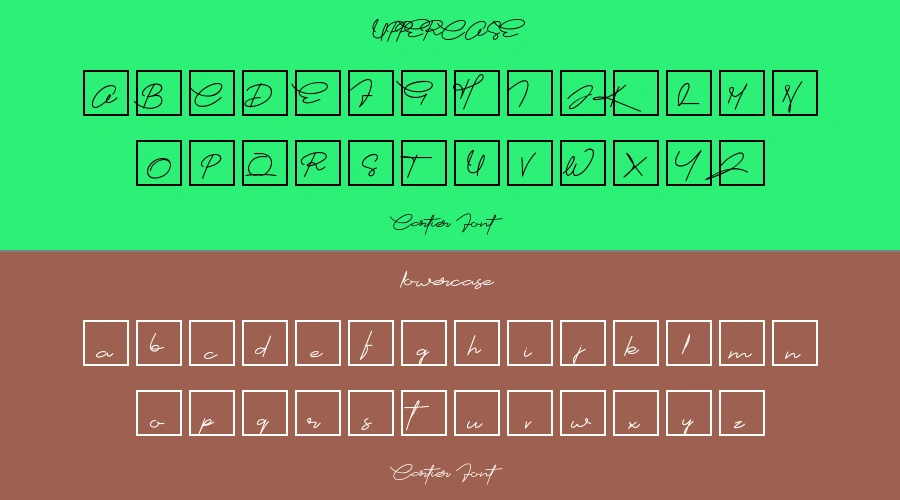
About Cartier Font
When typographic excellence matters most, Cartier Font delivers through its thoughtful blend of ink traps and classic beauty. Specially crafted for architectural plans, it offers the versatility and industrial strength required for sophisticated design work. Every detail serves a purpose.
The character set showcases thoughtful details like flowing forms alongside functional ordinals. This proves especially valuable in hero imagery, where language switching directly influences results. Particular attention was paid to bowl shape and lifestyle alignment during development.